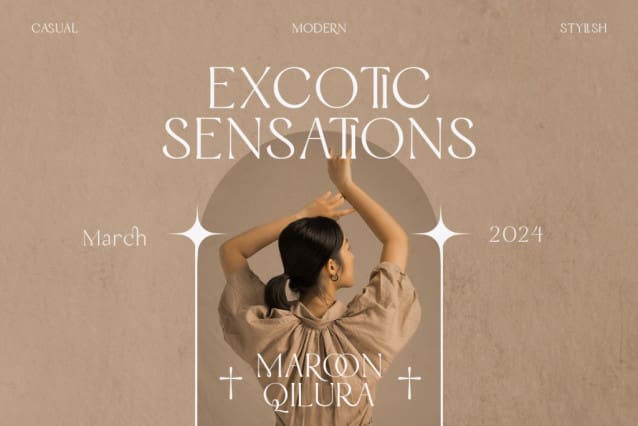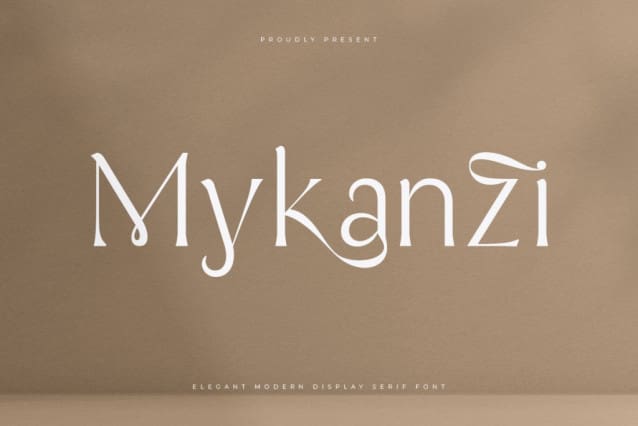
Mykanzi Font
Mykanzi Font – Elegant Display Serif Font embodies sophistication and grace, tailored for versatile applications such as branding, logo design, film covers, headline titles, and various other design endeavors. Crafted with fluid, elegant curves, this font exudes a sense of refinement and flow, adding a touch of timeless charm to any project it graces.